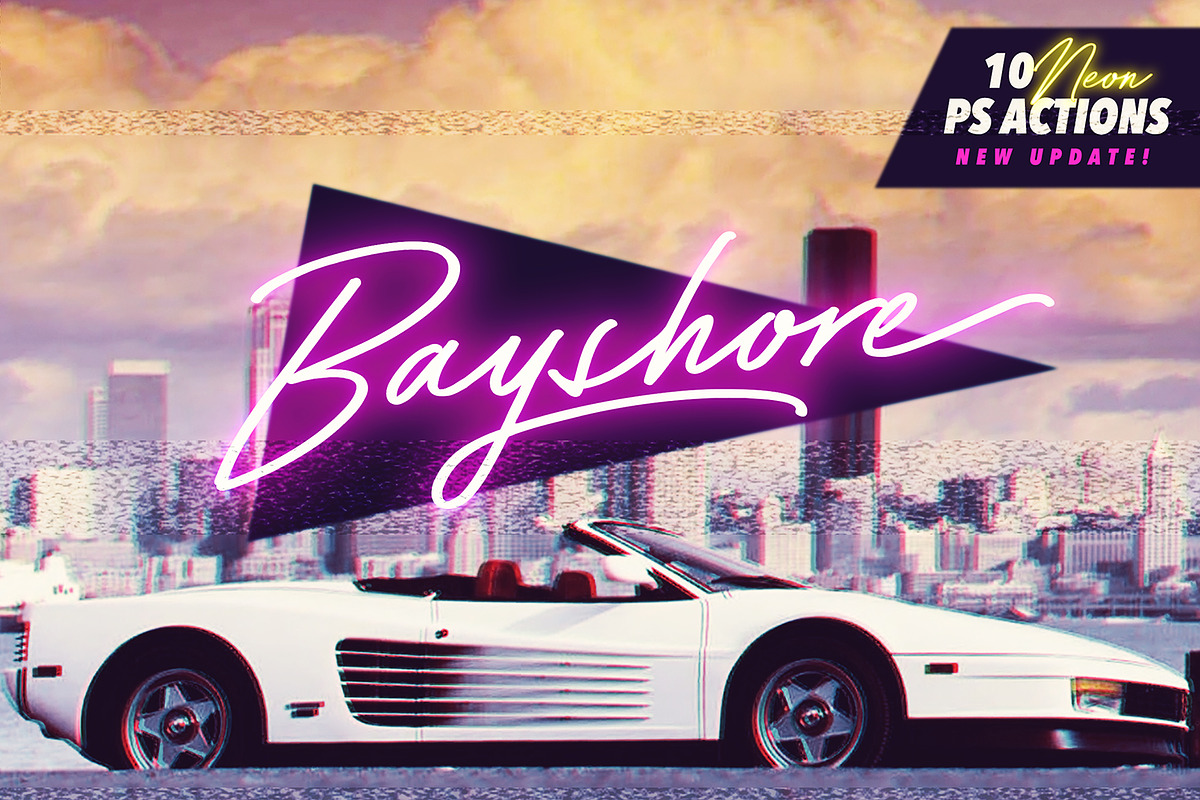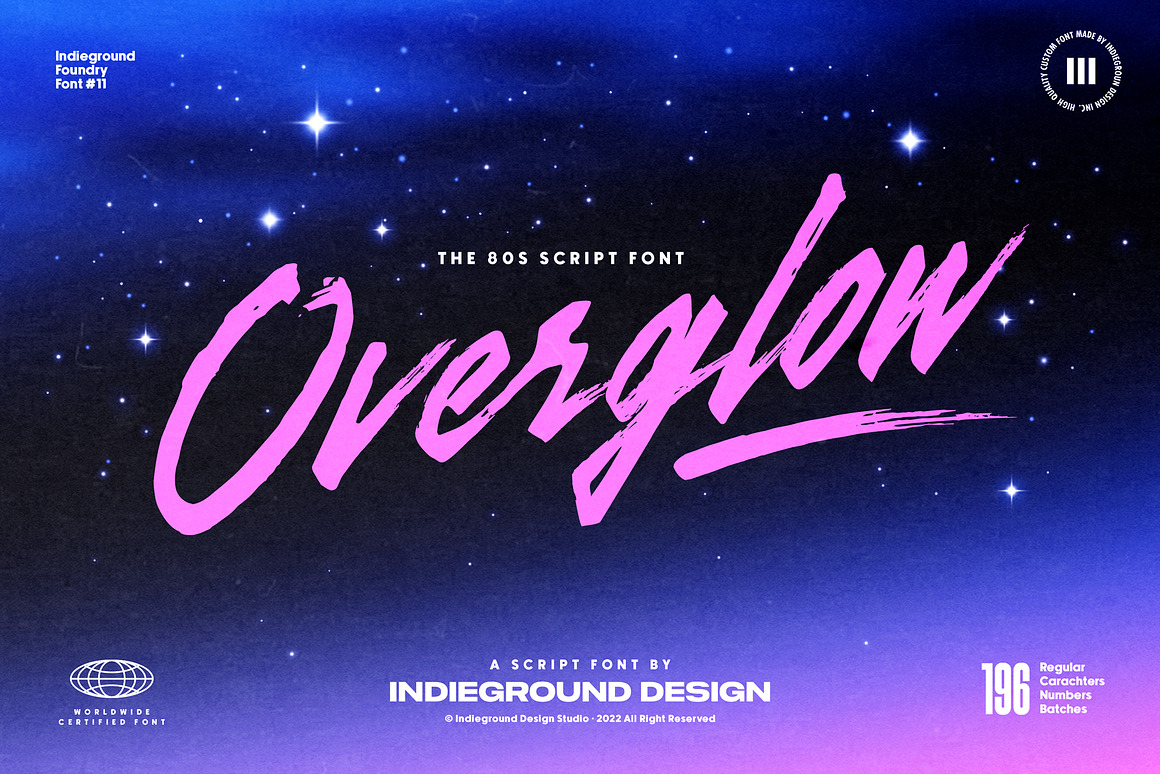
Are you ready to infuse your designs with a blend of retro nostalgia and futuristic vibes? Look no further than our guide on the Best Vaporwave Fonts for A Retro-Futuristic Look. If you’re on the hunt for fonts that transport your projects to another era while adding a funky twist, you’ve come to the right place!
Fonts have the incredible ability to elevate ordinary designs to extraordinary heights. And when it comes to injecting that extra dose of personality, vaporwave fonts are the perfect solution. These fonts not only evoke feelings of nostalgia but also bring a unique, futuristic edge to your designs. Whether you’re crafting gaming graphics, art pieces, music albums, or product packaging, vaporwave fonts offer endless creative possibilities.
What sets vaporwave fonts apart is their versatility. With their robotic, quirky, and retro-futuristic appearance, they seamlessly complement a wide range of design projects. From vintage-themed designs to modern artwork, vaporwave fonts add a captivating charm that’s hard to resist.
So, if you’re ready to embark on a design journey filled with creativity and style, join us as we explore the enchanting world of vaporwave fonts. Let’s uncover the magic and discover the perfect font to bring your visions to life!
Retro Revival: Dive into the 9+ Best Vaporwave Fonts of the Decade
1. Bayshore + New! Neon Glow Vaporwave Fonts
Transport yourself back to the neon-lit streets of the 80s with Bayshore font – a mono-line script that oozes retro charm. Crafted with meticulous detail, Bayshore captures the essence of the era, making it the perfect choice for adding a vintage touch to your designs.
With its sleek and stylish design, Bayshore is ideal for a variety of projects, from logos to packaging to merchandise. Plus, its full character set, including uppercase and lowercase letters, along with punctuation marks and symbols, gives you plenty of options for customization.
But that’s not all – Bayshore also comes with end swashes and underline swashes, allowing you to add a touch of elegance and draw attention to key words or phrases in your designs.
And now, with the addition of 10 Neon Glow Photoshop Styles, Bayshore font takes your designs to the next level, adding an extra layer of visual interest and creativity.
Whether you’re creating posters, album covers, or social media graphics, Bayshore font and its Neon Glow Photoshop Styles are sure to make your designs pop. So why wait? Dive into the world of Bayshore font today and unleash your inner 80s nostalgia!
2. Overglow Vaporwave Font
Discover the captivating allure of Overglow Font by Indieground – a calligraphic masterpiece infused with retro vibes. Created in collaboration with artist Alessandro Strickner, also known as Overglow, this font is tailor-made for artworks evoking the ambiance of the 80s and 90s.
Perfectly suited for synthwave, vaporwave, and aesthetic elements, Overglow Font adds a nostalgic touch to titles and logotypes. With its abundance of ligatures, underlines, and glyphs, this versatile font is a multitasking powerhouse, ready to elevate your designs to new heights of creativity.
3. Hot Rush Font Duo
Introducing Hot Rush Font Duo
Get ready for a retro blast with Hot Rush Font Duo. This dynamic pairing of Sans & Script fonts is designed to transport you back to the 80s in style. Perfect for logos, merchandise, and more, this duo packs a punch with clean lines and textured strokes. With alternate characters, swashes, and language support, Hot Rush is your go-to for nostalgic designs. Discover the vibe today!
4. Outrun Forever – 2 in 1 Font Pack
Take a trip back to the vibrant 80s and early 90s with Outrun Forever – a font pack that channels the nostalgia of VHS tapes, CDs, and Laser Discs. Featuring a dynamic duo of Sans and Script fonts, this collection offers versatility and retro charm in every letter.
Included in this pack:
Outrunner Sans Regular: An 80s-styled color OTF font with uppercase and lowercase characters, numerals, and punctuation.
Outrunner Sans Italic: A sleek and stylish italic version of Outrunner Sans, perfect for adding flair to your designs.
Hotliner Script Regular, Second, and Third: Textured hand-made script fonts with uppercase characters and full sets of numerals and punctuation.
Extras: 7 font swashes for adding the final touches to your 80s-inspired creations.
Experience the essence of the past with Outrun Forever – where every font tells a story of retro nostalgia.